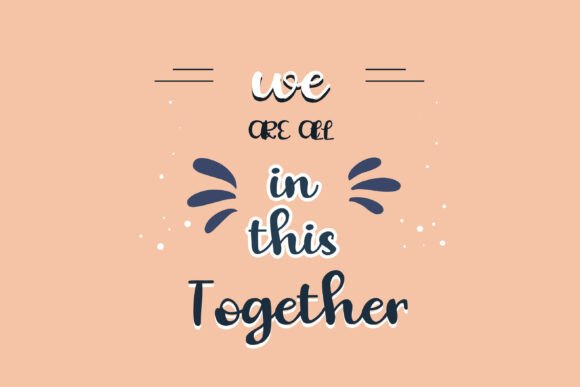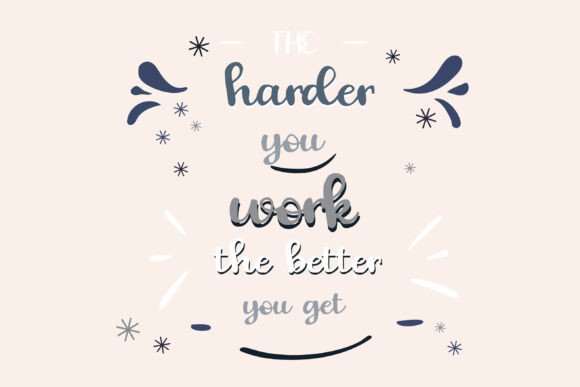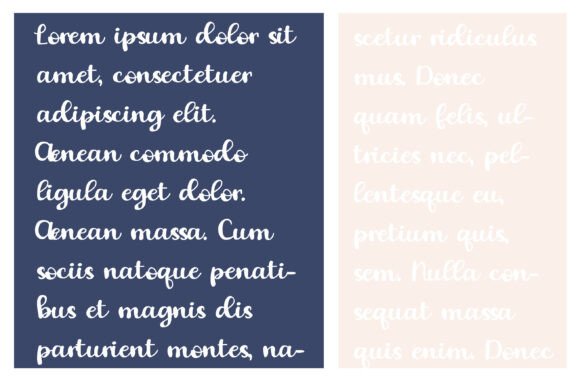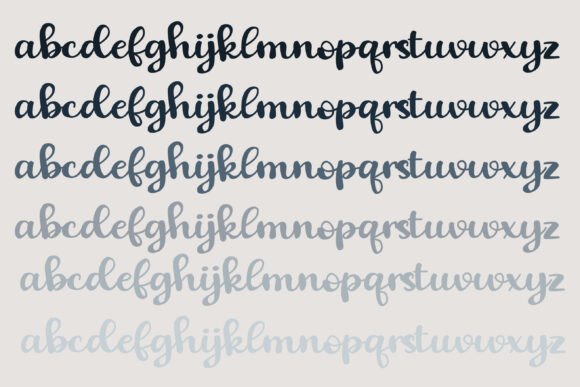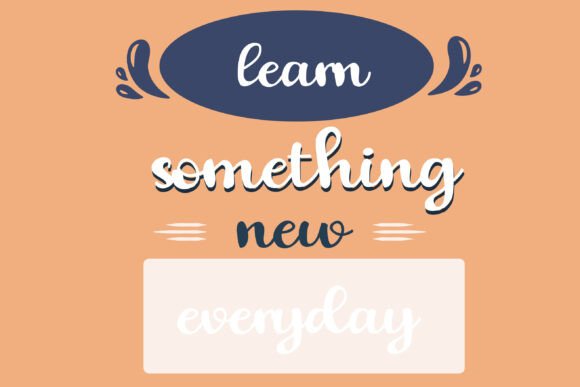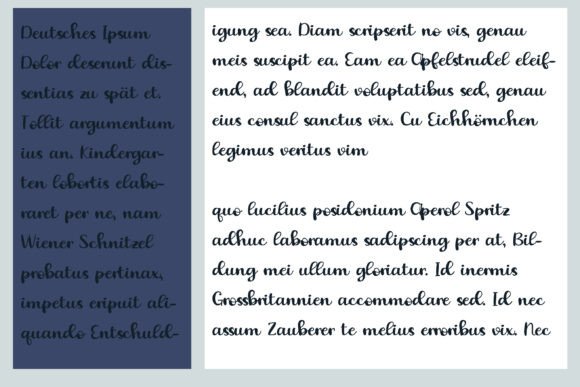
The Charm of Bellyfish Font: A Hand-Crafted Script for Creative Projects
I still remember the time I was working on a wedding invitation project, and I just couldn’t find the perfect font to capture the elegance and playfulness of the occasion. The client wanted something that looked like it was written by hand, but still had a touch of sophistication. That’s when I stumbled upon the Bellyfish Font, a beautiful hand-crafted script that has since become one of my go-to fonts for creative projects.
A Personal Review of Bellyfish Font
So, what makes Bellyfish Font so special? Here are some things I love about it:
• ✨ Unique and playful mix of thick and thin lines that gives it a hand-crafted feel
• ✅ Bold and highlighted versions included, perfect for adding emphasis to your text
• 💫 Works beautifully for invitations, greeting cards, and other creative projects
• 📝 Can be used for both formal and informal designs, depending on the context
Of course, no font is perfect, and Bellyfish Font has a few small quirks:
• 🤔 Some letters may appear a bit inconsistent in size or spacing, which can be noticeable at larger font sizes
• ⚠️ May not work as well for very long blocks of text, as it’s designed to be more decorative
The Story Behind Bellyfish Font
Bellyfish Font was designed with the intention of creating a unique, hand-crafted script that would add a touch of personality to any design project. The designer wanted to create a font that looked like it was written by hand, but still had a level of sophistication and elegance.
What is Bellyfish Font? Bellyfish Font is a hand-crafted script font made from a mix of thick and thin lines, perfect for creative projects like invitations and greeting cards.
Is Bellyfish Font suitable for long blocks of text? No, Bellyfish Font is designed to be more decorative and may not work as well for very long blocks of text.
Are there any variations of Bellyfish Font? Yes, Bellyfish Font comes in bold and highlighted versions, which can add emphasis to your text.